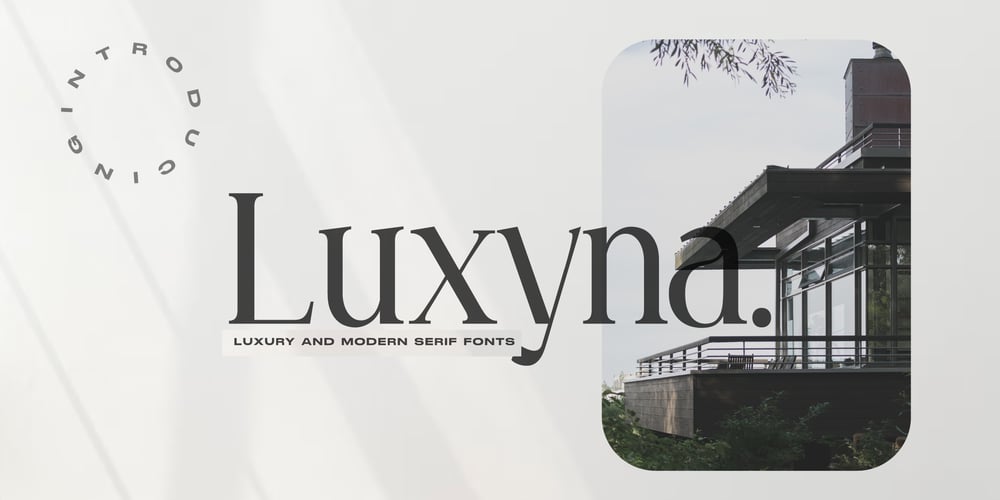
Luxyna Font Family was designed by Heri Imanudin and published by Krafted. Luxyna contains 1 styles and family package options. Wish to add a touch of luxury to your design? A deluxe font will transform the way people see your brand.Introducing Luxyna – a Luxury Serif Font.A perfect blend of luxury and modern spirit, Luxyna will appeal to all audiences, young and old. Best of all, it works great on both the web and in print. Give it a go and see how the right font choice improves your image.What you’ll get: Multilingual & Ligature Support Full sets of Punctuation and Numerals Compatible with: Adobe Suite Microsoft Office Keynote Pages Software Requirements: The fonts that you’ll receive in the pack are widely supported by most software. In order to get the full functionality of the selection of standard ligatures (custom-created letters) in the script font, any software that can read OpenType fonts will work. We hope you enjoy this font and that it makes your branding sparkle! Feel free to reach out to us if you’d like more information or if you have any concerns.